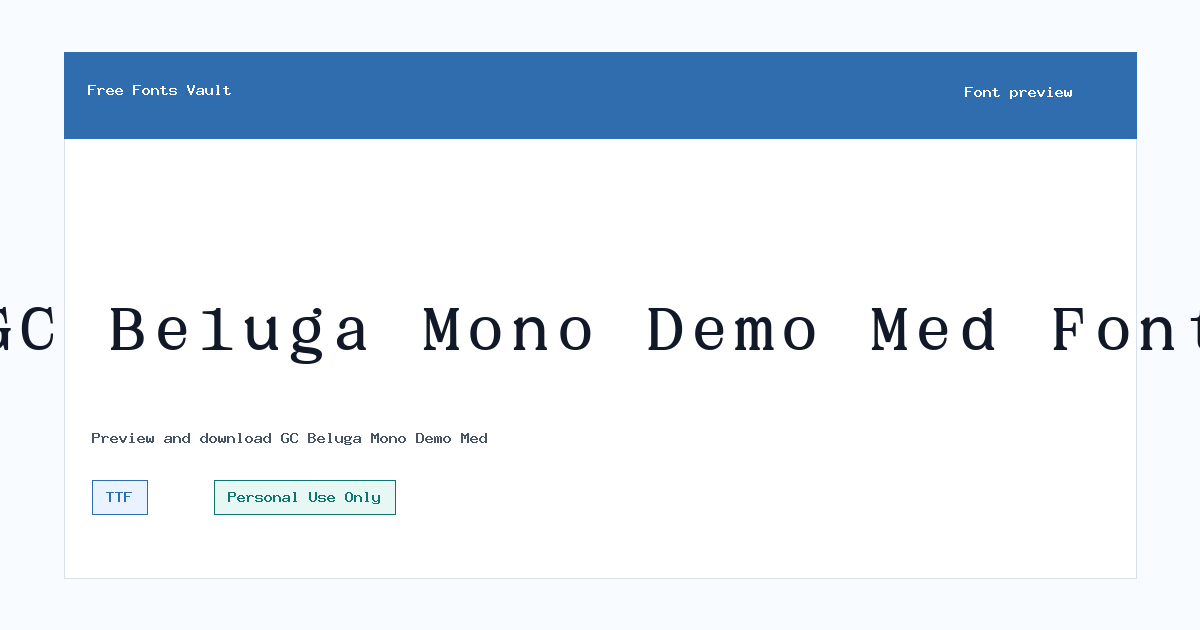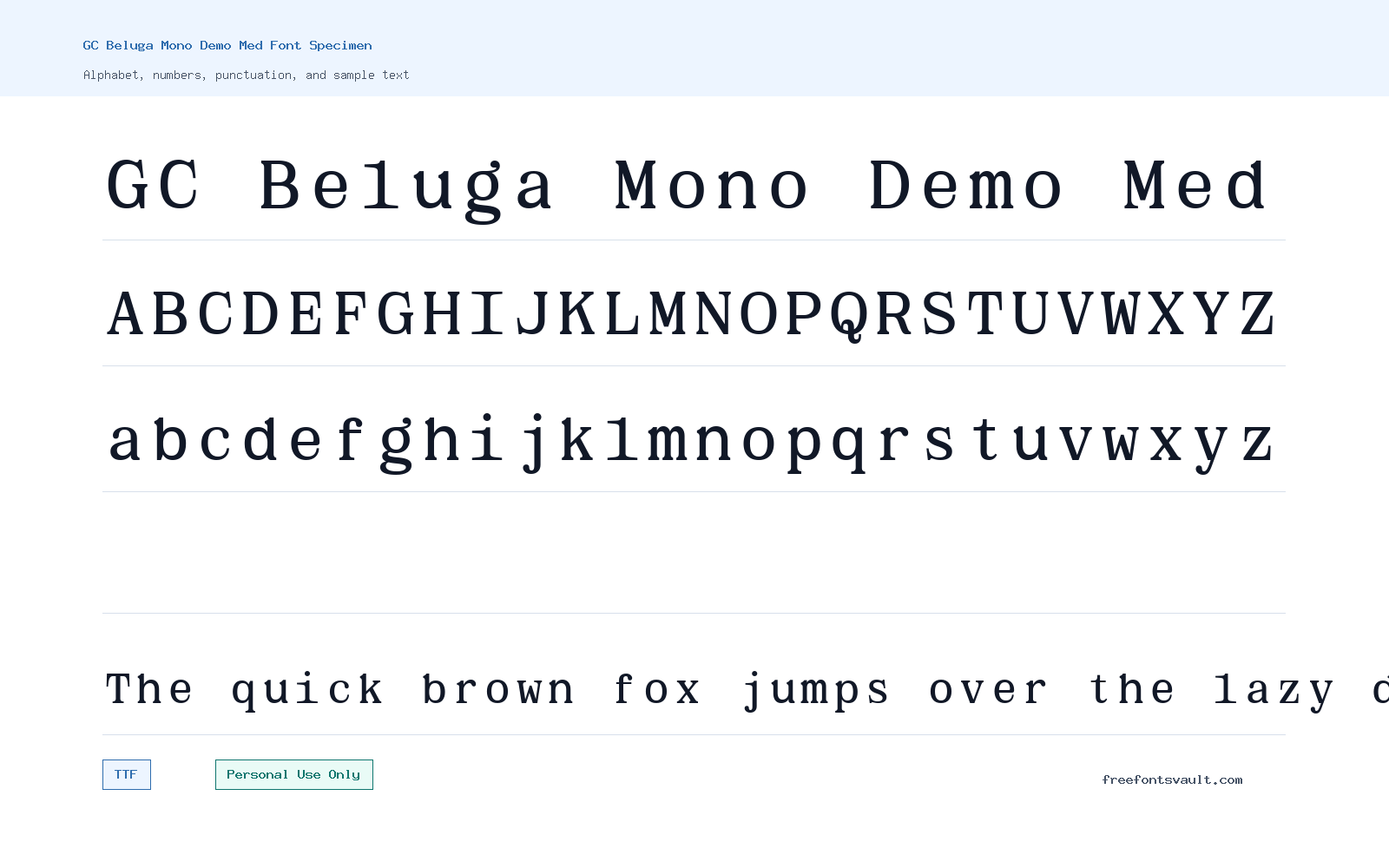
GC Beluga Mono Demo Med
- Designer Dwi Indah Fadhilatul Amanah by Glyphonic
GC Beluga Mono Demo Med is a medium-weight monospaced demo font from Glyphonic. It is a practical choice when you want text with even spacing, a structured rhythm, and a clean preview-ready look.
GC Beluga Mono Demo Med uses a monospaced structure, which means each character is designed to occupy the same horizontal space. That gives words, numbers, and short phrases a steady, mechanical rhythm. The medium weight keeps the letters present without becoming too heavy, making the font useful for display settings where you want order, clarity, and a slightly technical feel. Because the file is marked as a demo, it is best approached as a trial version for testing visual direction rather than as a final production font for broad use.
This font can work well for short headlines, poster text, coding-themed graphics, editorial mockups, packaging studies, and branding sketches where equal-width letters help create a controlled layout. It may also suit logo exploration when the design needs a measured, typewriter-like or interface-inspired tone. For longer paragraphs, test it carefully in the preview first. Monospaced fonts can feel less relaxed than proportional text faces, especially in dense reading settings, so they usually perform best in short blocks, labels, captions, names, menus, and display compositions.
For web mockups, GC Beluga Mono Demo Med can help create navigation labels, feature cards, section headers, and technical UI accents. Try it in all caps, title case, and mixed case to see how the spacing affects the mood. If you are using it for a logo draft or product concept, check the most important letters individually, especially repeated characters and letter pairs with wide internal gaps. Monospaced designs can look beautifully consistent, but they can also create unexpected open spaces in certain words.
Pairing this font is mostly about balance. Since GC Beluga Mono Demo Med has a structured monospaced rhythm, it often works best beside a warmer sans serif or a readable serif used for body copy. A neutral sans serif can keep a layout clean and modern, while a classic serif can soften the technical character. Avoid pairing it with another strong display font unless you want a deliberately busy design. Let GC Beluga Mono Demo Med handle the accent role, then use a simpler companion face for longer reading.
- Monospaced letter spacing for an even, structured text rhythm.
- Medium 500 weight that gives short text a clear presence without an overly bold look.
- Normal style regular variant for straightforward testing in mockups and display layouts.
- Poster headlines and short promotional graphics
- Logo concepts and wordmark exploration
- Web mockups with technical or editorial accents
- Coding-themed visuals, interface labels, and UI-style text
- Packaging studies, zines, title cards, and social media layouts
- Short captions, tags, menus, and structured typographic compositions
GC Beluga Mono Demo Med is credited to Dwi Indah Fadhilatul Amanah by Glyphonic, with Glyphonic listed as the foundry.
What kind of font is GC Beluga Mono Demo Med?
It is a monospaced TTF font in a medium 500 weight. Monospaced fonts give each character the same width, creating an even and structured appearance.
Is this font good for body text?
It may work for short notes, labels, or captions, but monospaced fonts are usually less comfortable for long paragraphs. Test longer text in the preview before deciding.
What should I pair with GC Beluga Mono Demo Med?
Pair it with a simple sans serif for a clean interface-style layout, or with a readable serif if you want more contrast and warmth. Use GC Beluga Mono Demo Med as the accent font and keep longer text in the companion typeface.